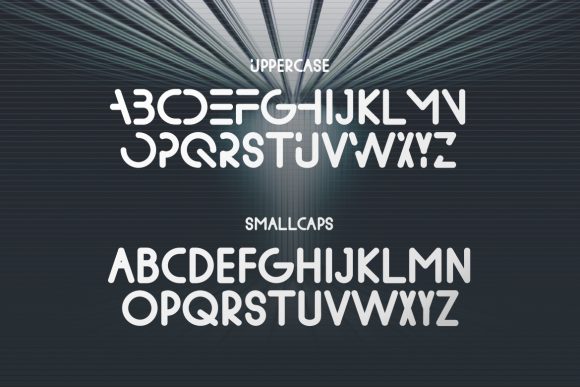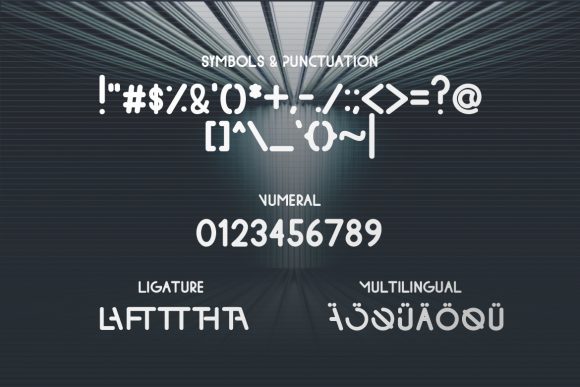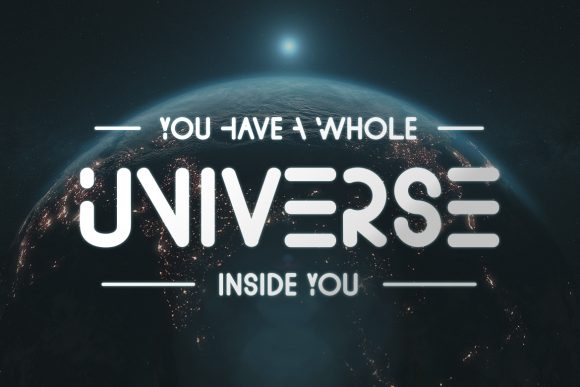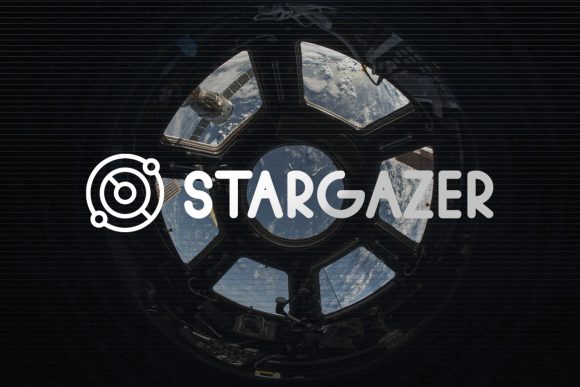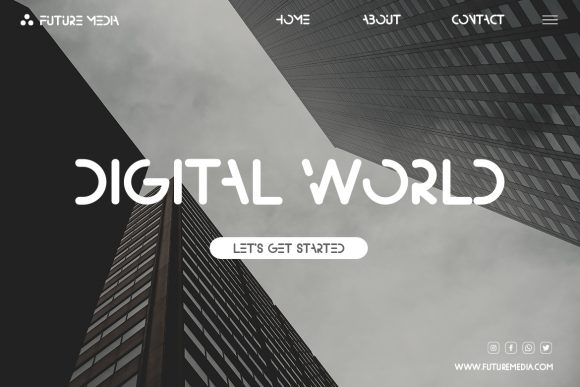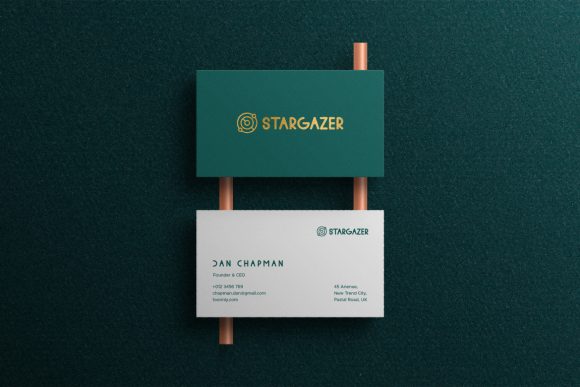
Introduction to Madsense Font
Madsense is a cool and trendy display font.
Add it to each of your techno, web related or futuristic design ideas, and you will love the results .
Madsense Font offers exceptional quality and versatility, making it a valuable addition to your design toolkit. Whether you’re creating for personal projects or commercial use, Madsense Font delivers professional results.